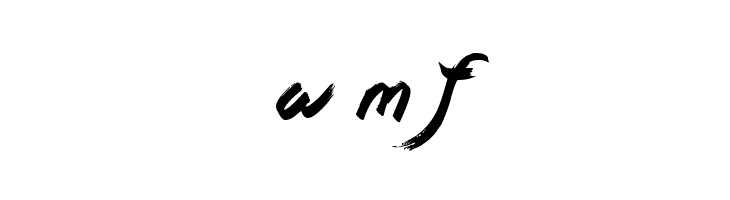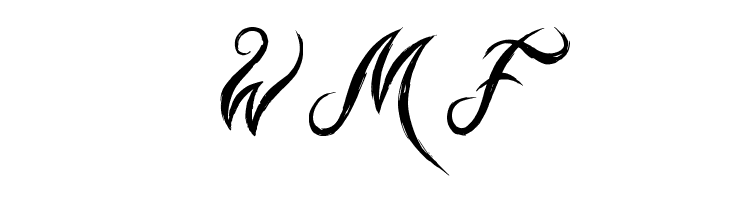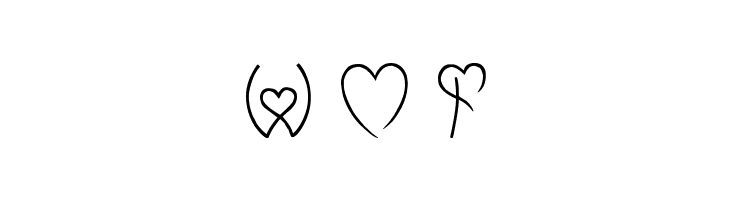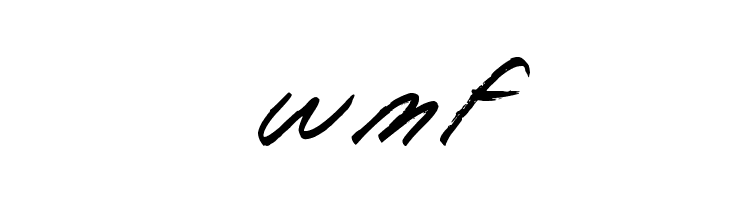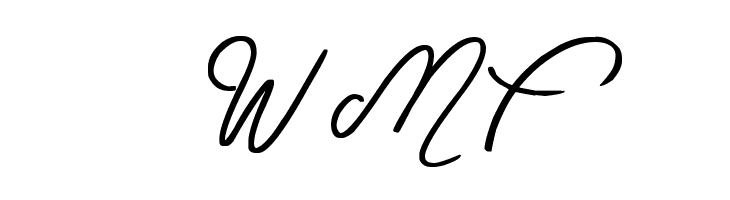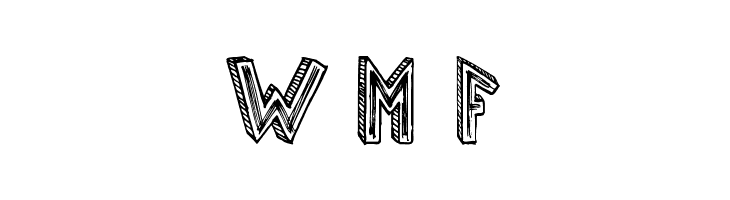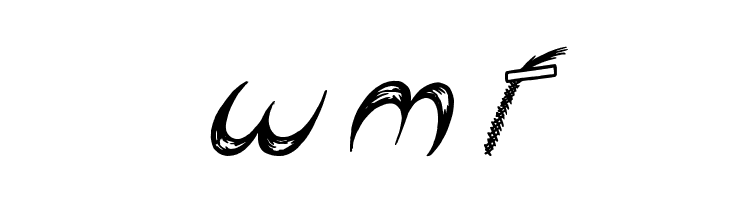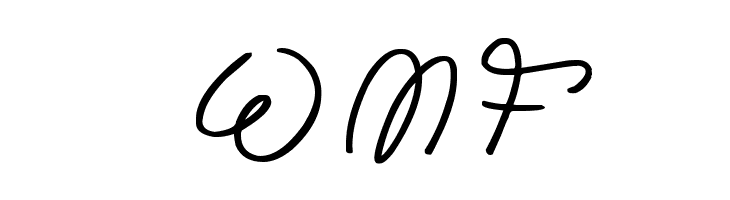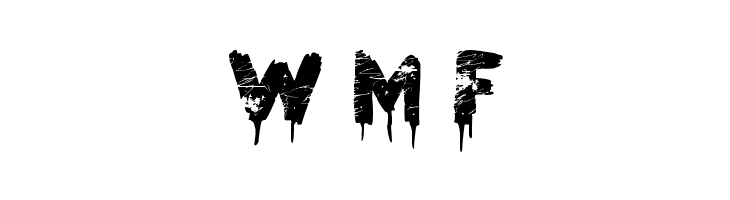
( Fonts by Jonathan Harris - www.tattoowoo.com )
A bold, brush-style font with dynamic, expressive strokes.
( Fonts by Jonathan Harris - www.tattoowoo.com )
An elegant, artistic script font with dynamic, flowing strokes and ornate uppercase letters.
( Fonts by Jonathan Harris - www.tattoowoo.com )
A playful, heart-themed font perfect for romantic and creative projects.
( Fonts by Jonathan Harris - www.tattoowoo.com )
A rugged, distressed font with jagged edges and an aggressive style.
( Fonts by Jonathan Harris - www.tattoowoo.com )
A bold, brush-stroke font with a dynamic and energetic style.
( Fonts by Jonathan Harris - www.tattoowoo.com )
A dynamic and elegant script font with flowing, cursive letterforms.
( Fonts by Jonathan Harris - www.tattoowoo.com )
A playful, hand-drawn font with a sketch-like, three-dimensional effect.
( Fonts by Jonathan Harris - www.tattoowoo.com )
A bold, dynamic font with expressive strokes and a playful, artistic style.